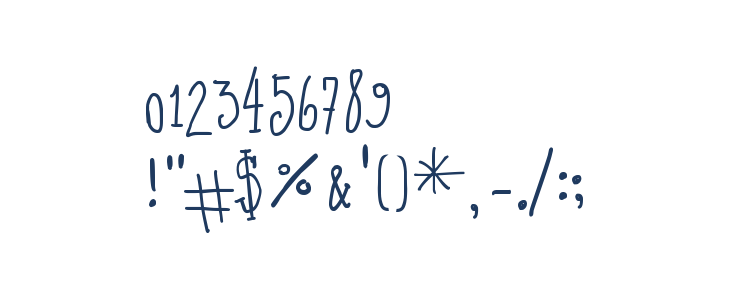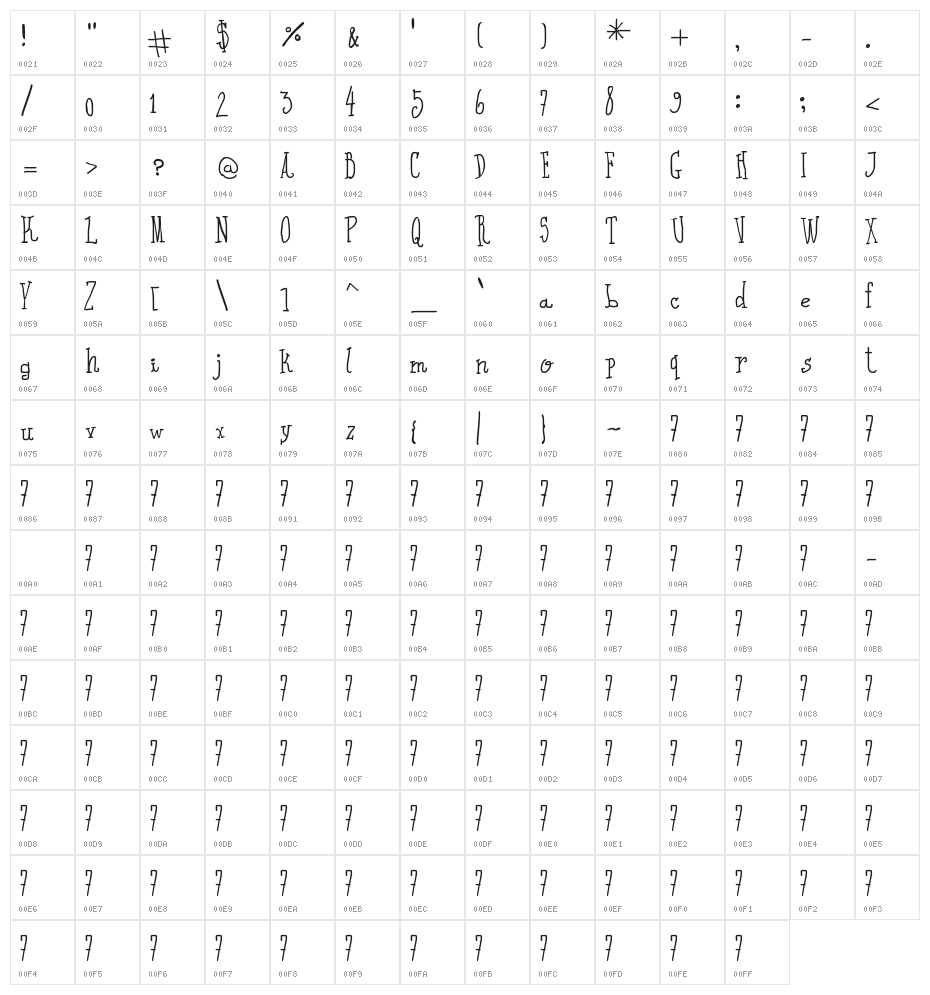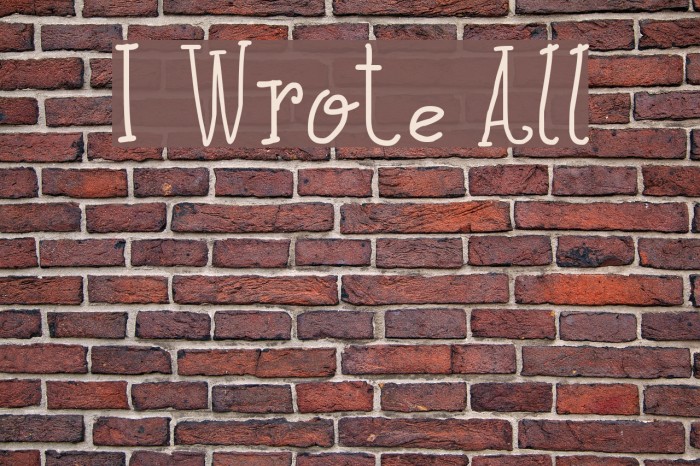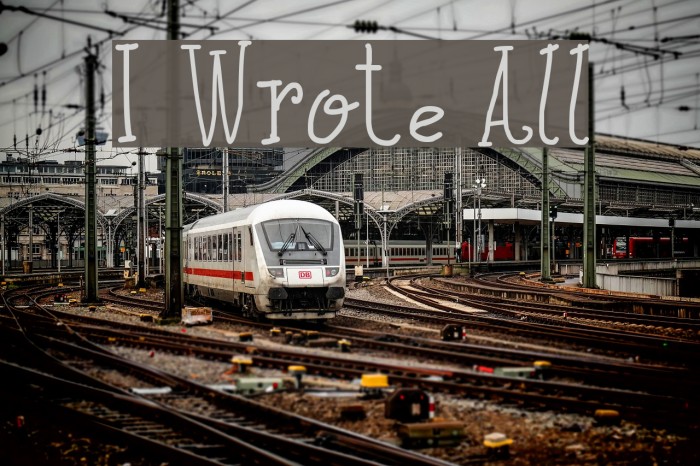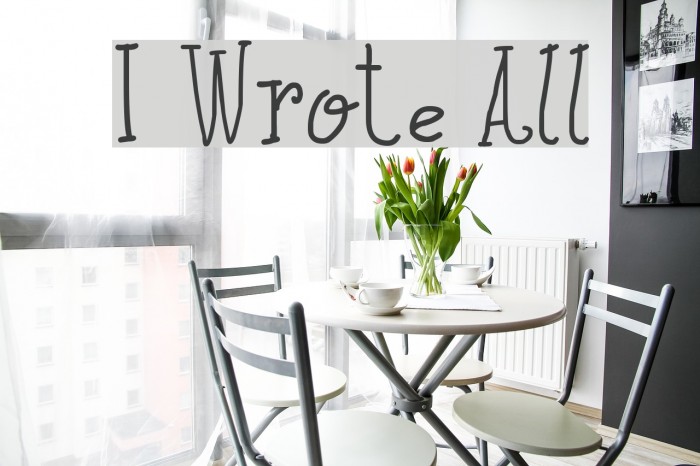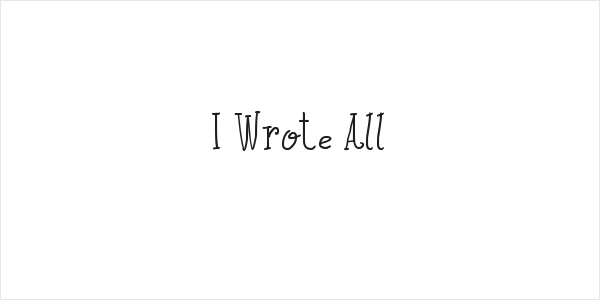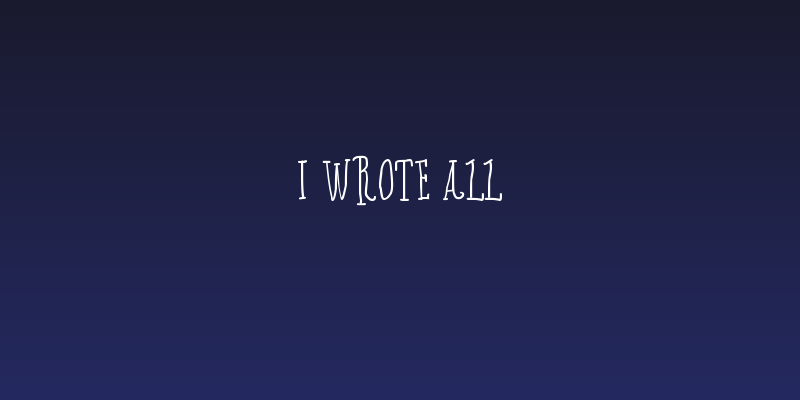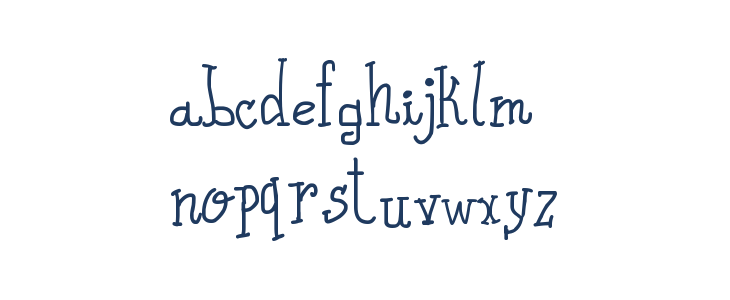
I Wrote All Font
I Wrote All Description
This font features a playful and whimsical handwritten style, characterized by its irregular and slightly uneven strokes. The letters have a casual, informal appearance, with a mix of tall, narrow characters and wider, more rounded ones. The uppercase letters are distinct and bold, while the lowercase letters maintain a consistent flow, adding to the font's charm. Numbers and special characters are crafted with the same playful touch, making them easily recognizable and visually appealing. The overall design is reminiscent of a personal, hand-drawn script, perfect for projects that require a touch of personality and creativity.
Use CaseHeadlines, Logos, Creative projects
Proposed ProjectsIdeal for greeting cards, children's books, creative posters, and personal branding.